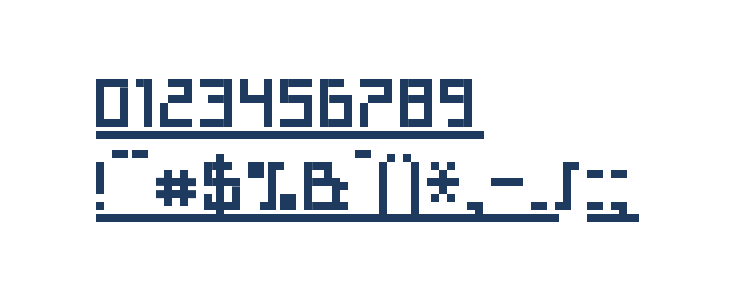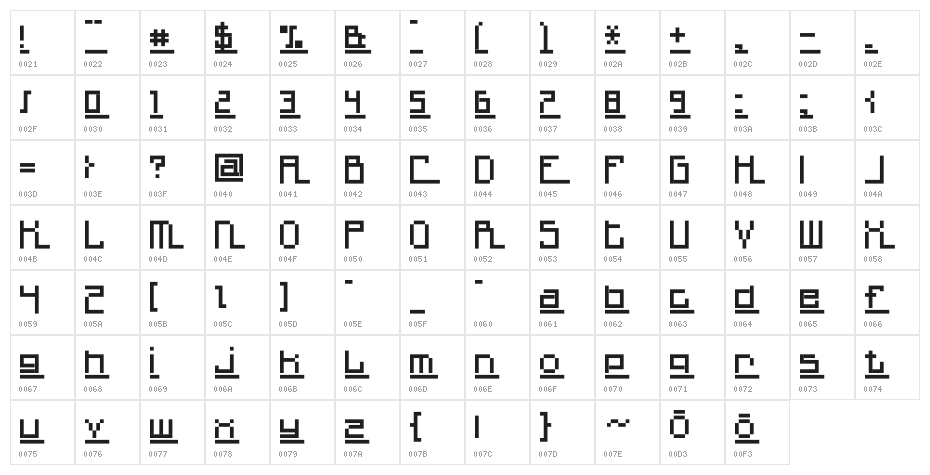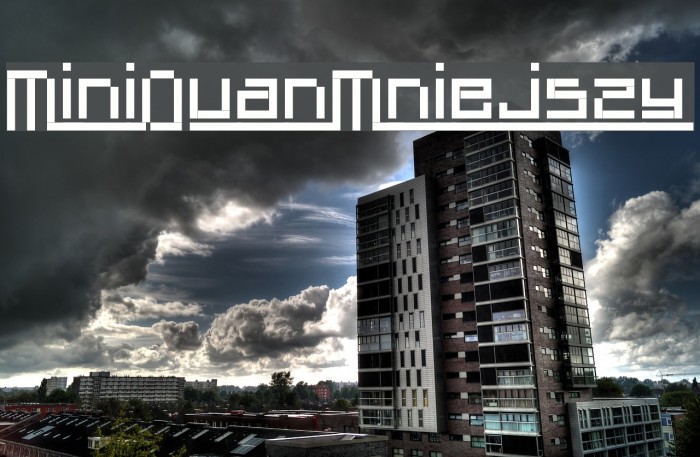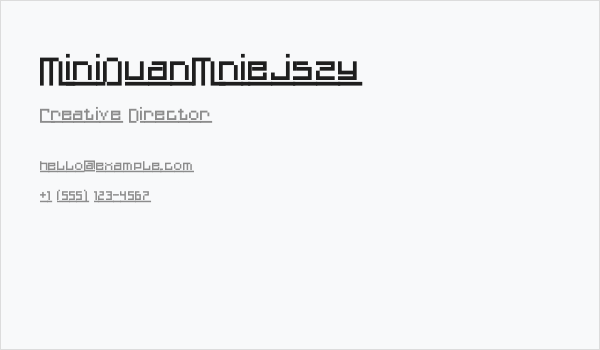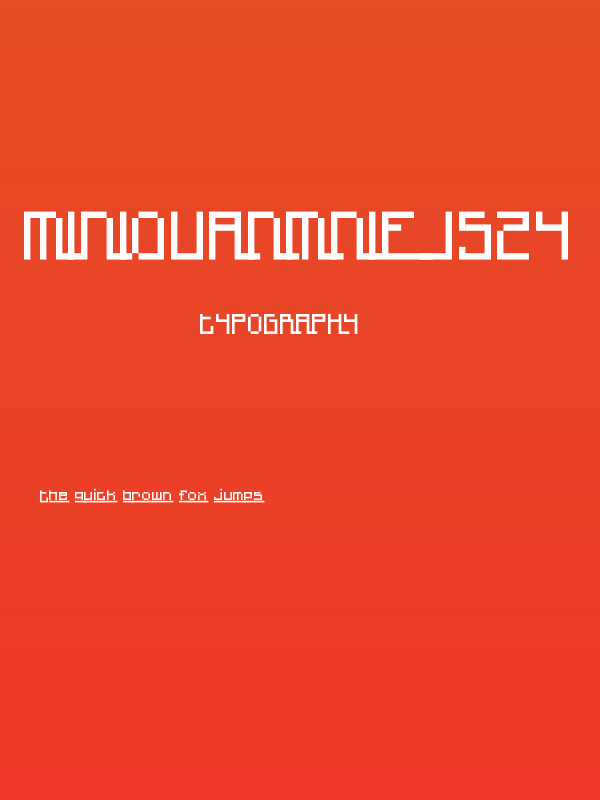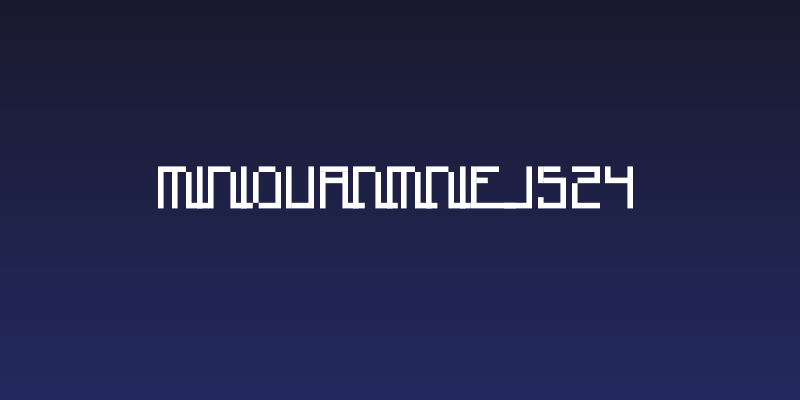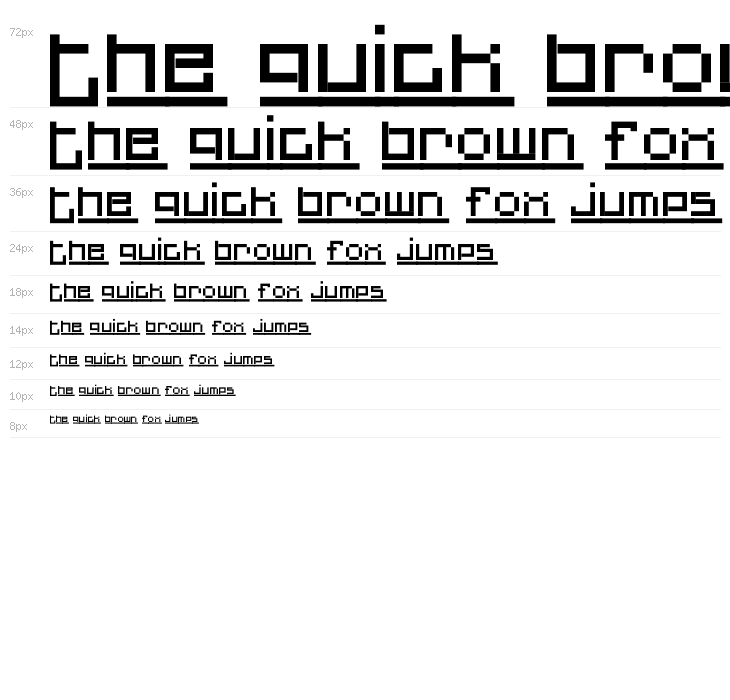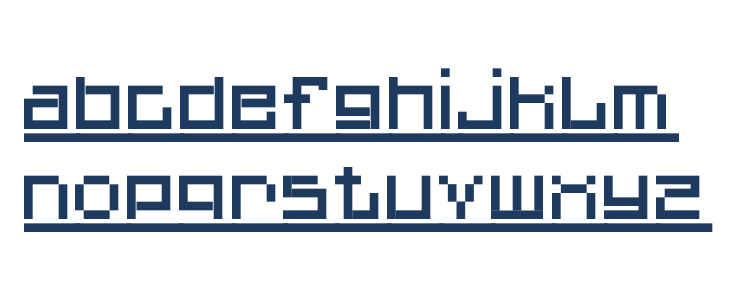
MiniQuanMniejszy Font
MiniQuanMniejszy Description
This font features a geometric, blocky design with a distinctly digital aesthetic. Each character is constructed with sharp, angular lines and consistent stroke widths, giving it a pixelated, retro look reminiscent of early computer graphics. The uppercase and lowercase letters maintain a uniform height, contributing to a cohesive and structured appearance. The numerals and special characters follow the same design principles, ensuring visual harmony across all elements. This font's style is both modern and nostalgic, making it suitable for projects that require a tech-savvy or vintage digital feel.
| Overall Style | Modern, Vintage |
| Proposed Projects | Ideal for video game design, tech-themed posters, retro digital art, and branding for technology companies. |